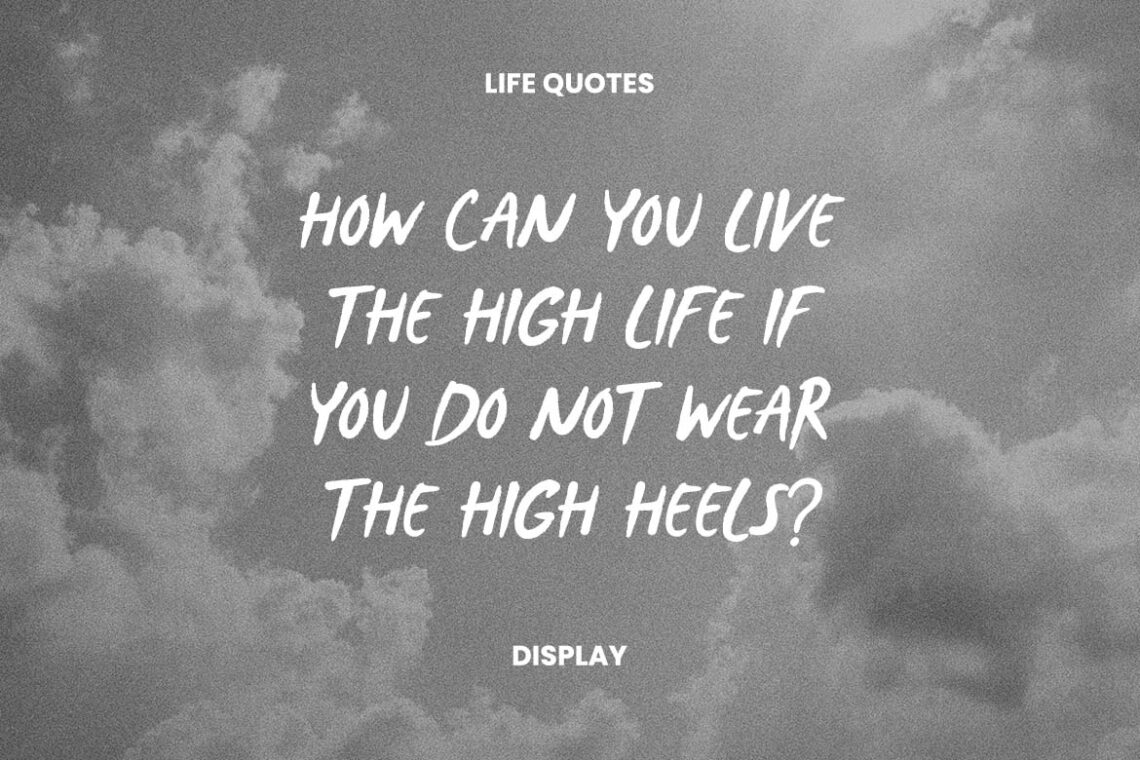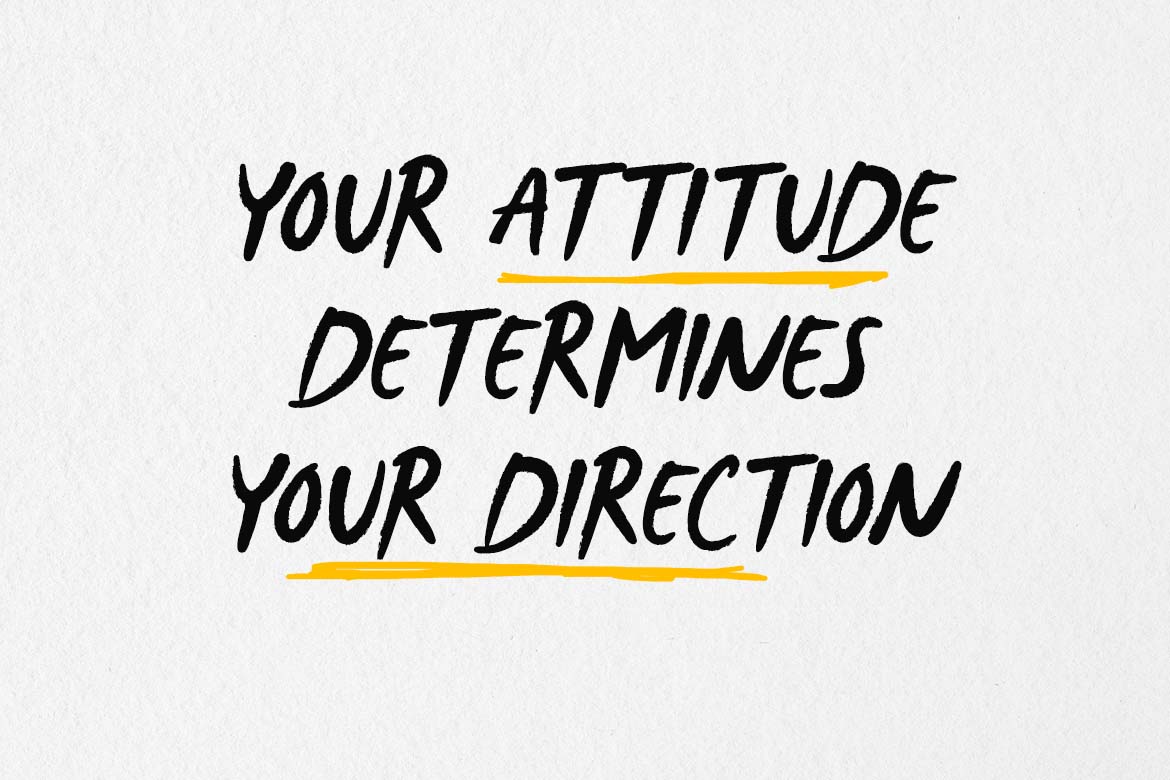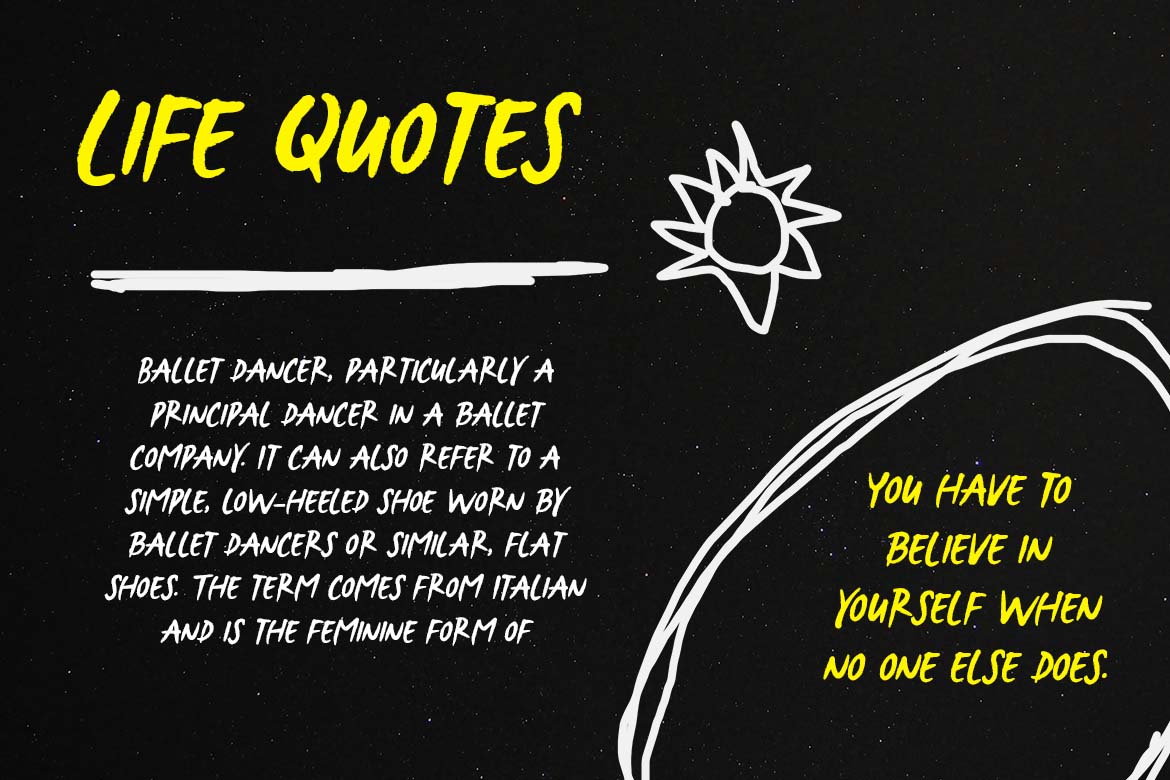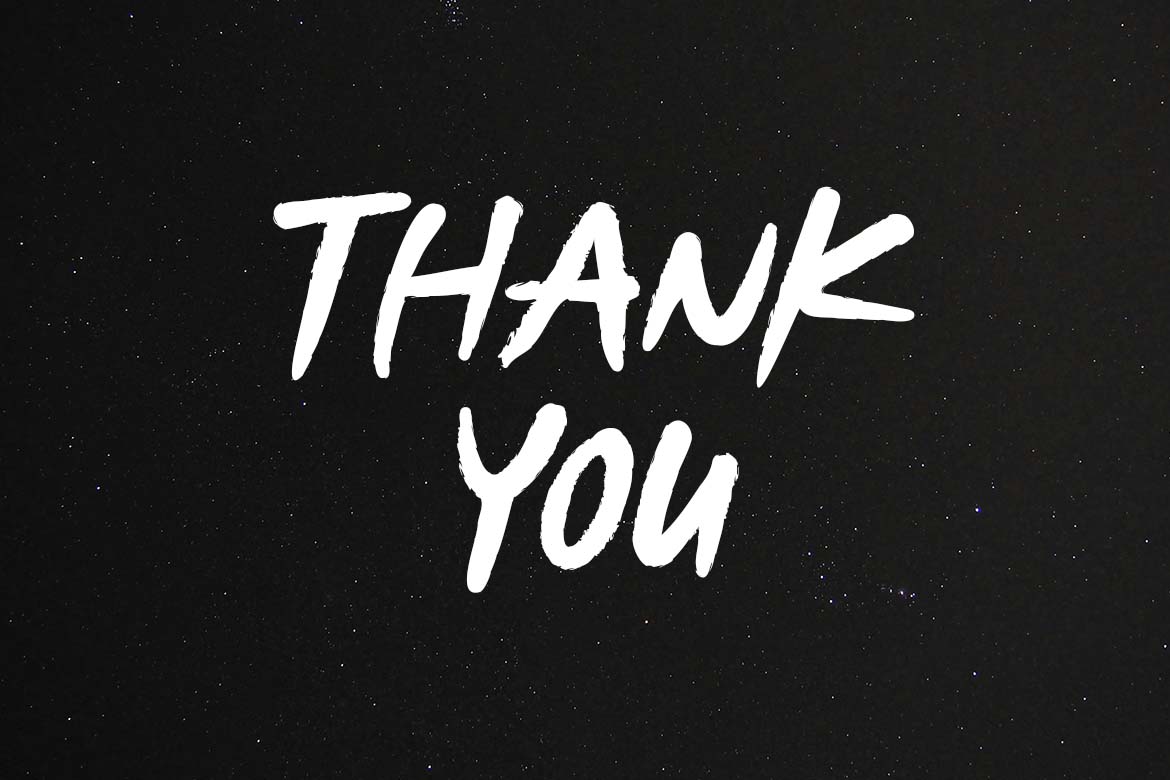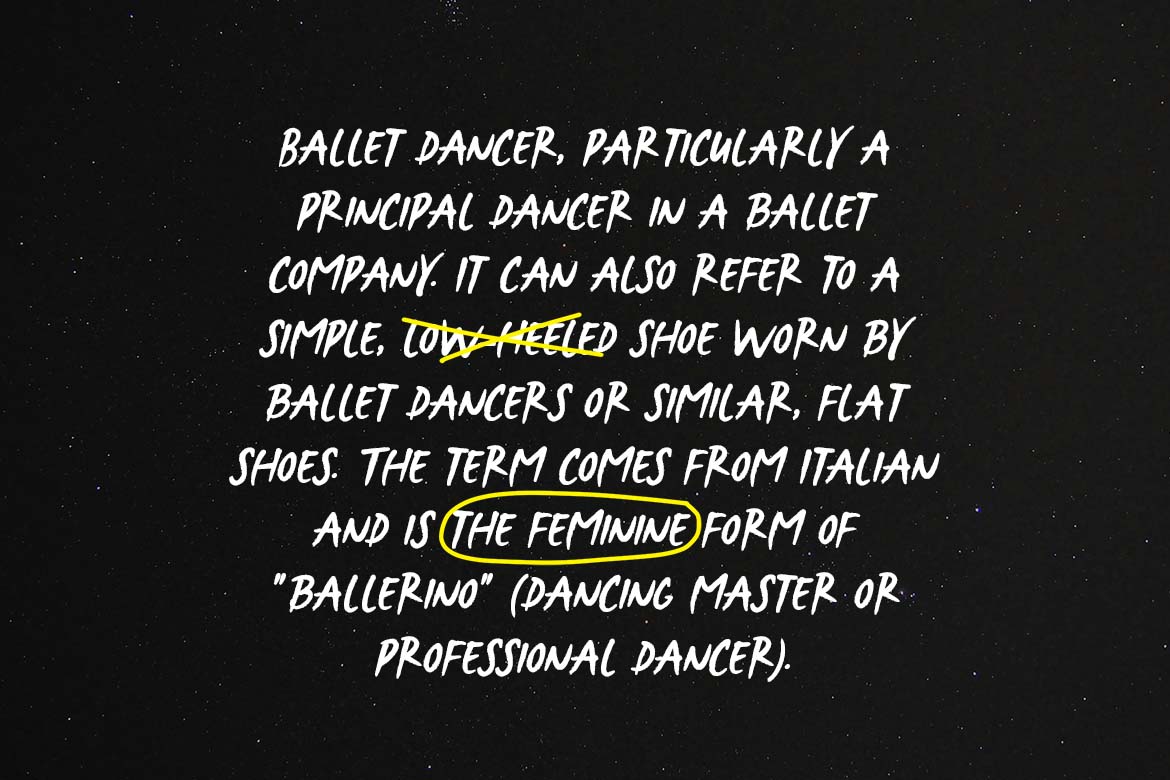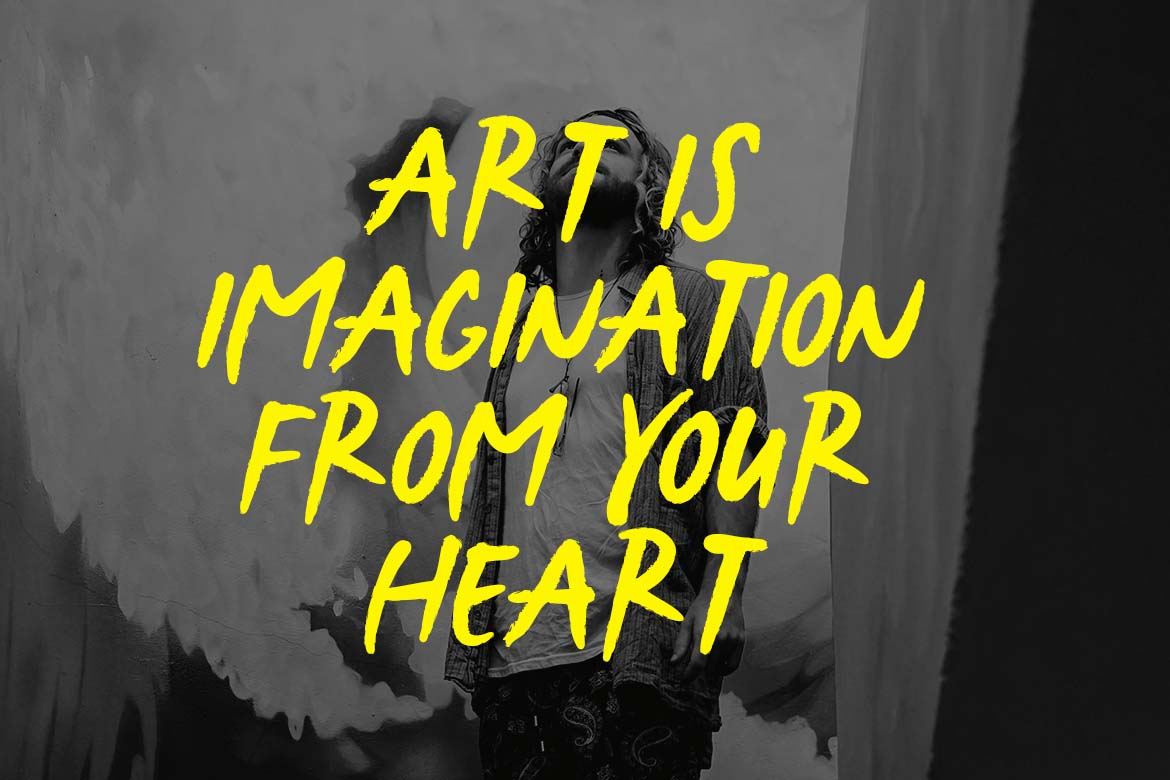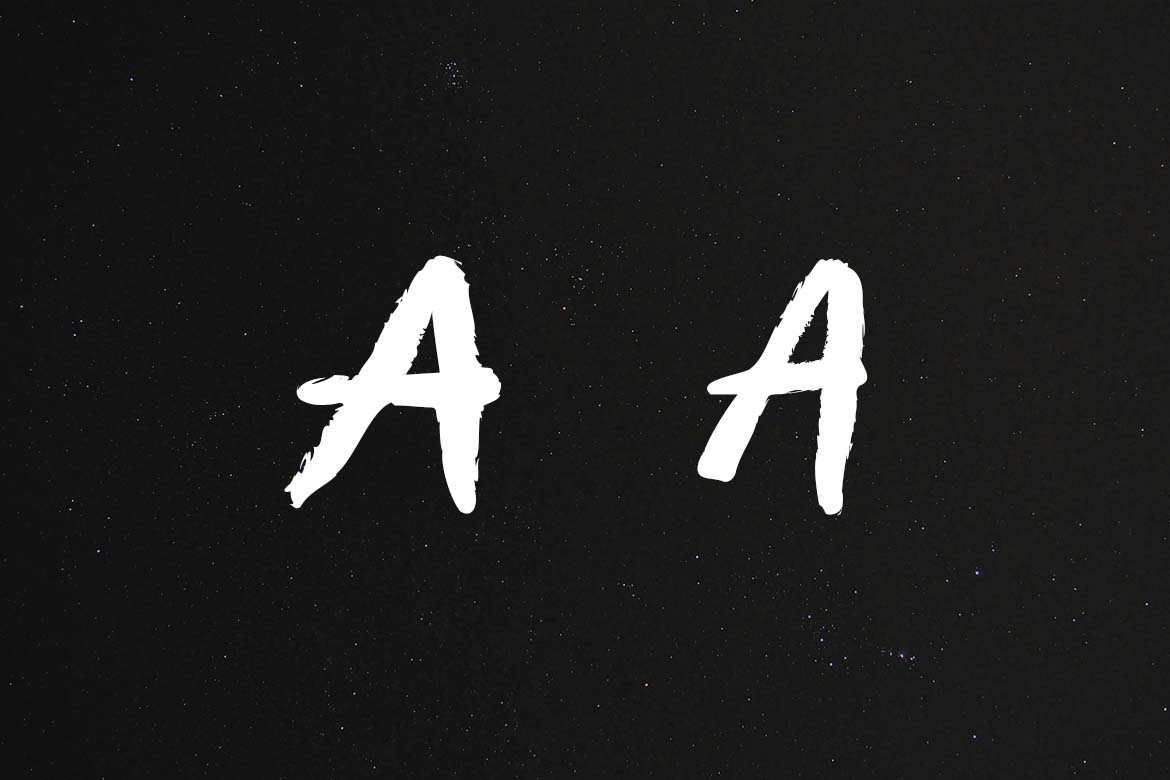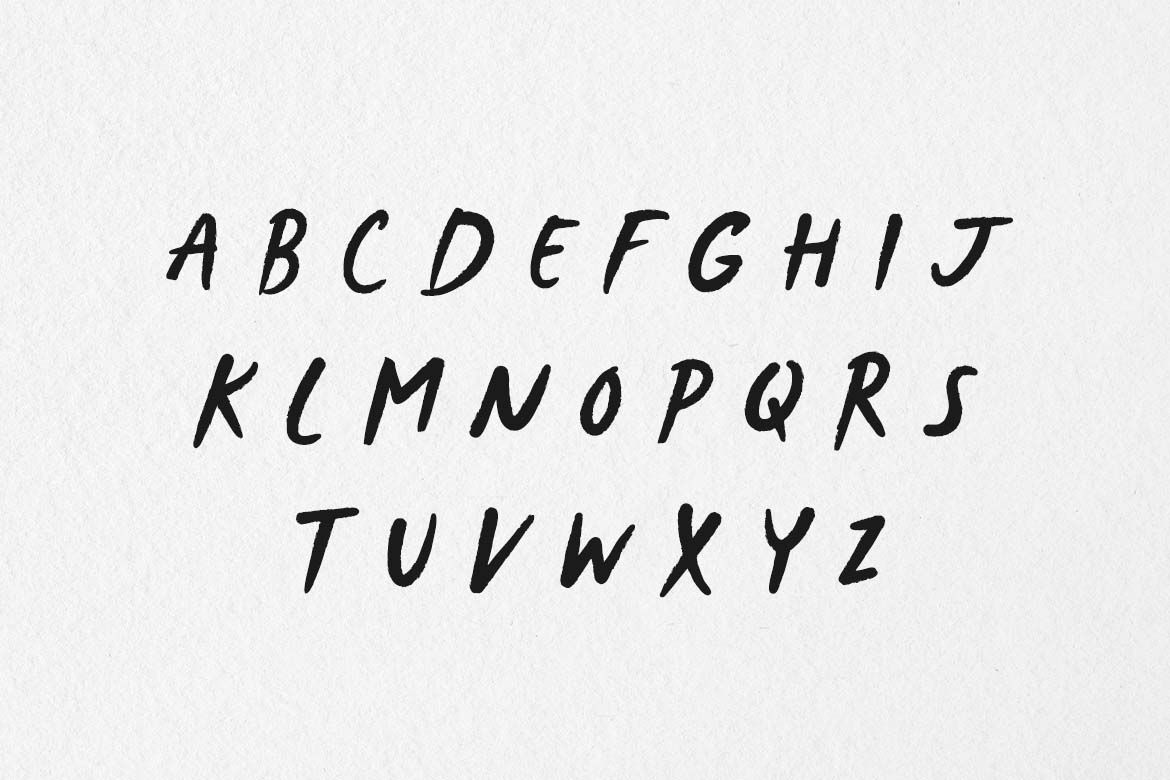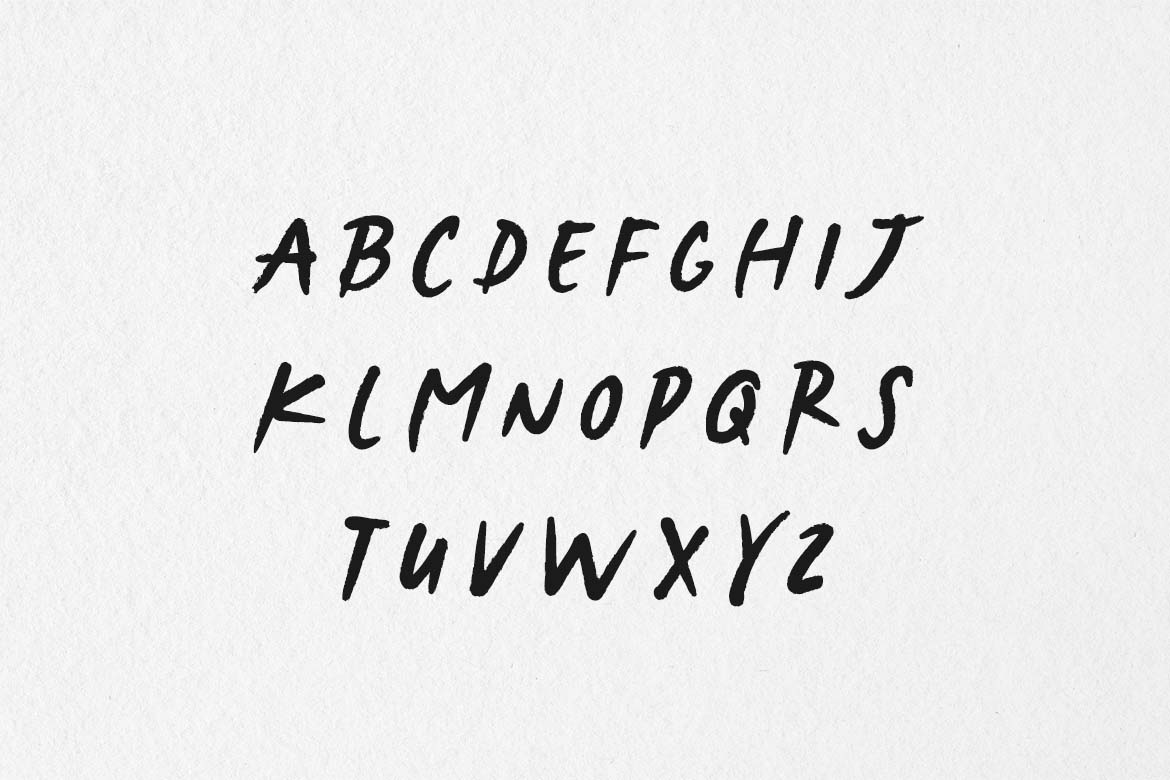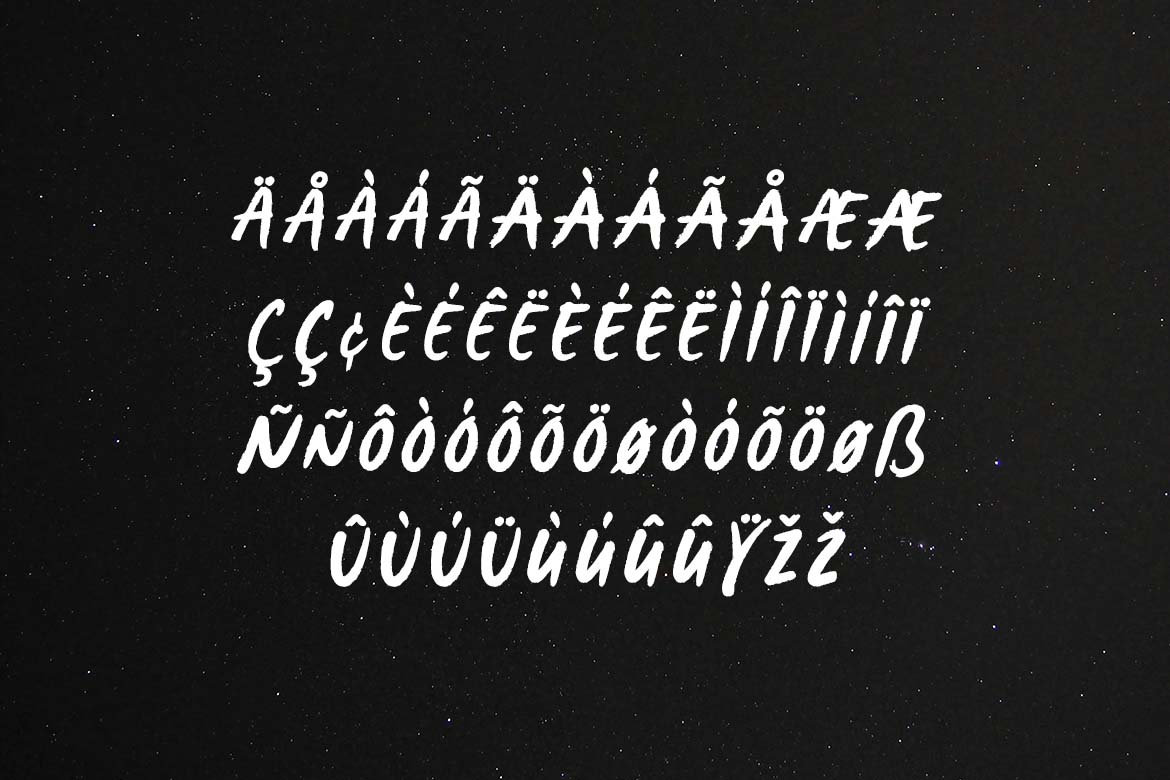
Daily Notes Casual Writer Handwritten Font
Daily Notes Casual Writer Handwritten Font. The modern display font feels beautiful classy, elegant, and stylish. This font is ideally suited for a wide variety of projects, such as signature, stationery, logo, wedding, typography quotes, magazine or book covers, website headers, branding, and more. Also, fashion-related branding or editorial design displays both masculine and feminine qualities.